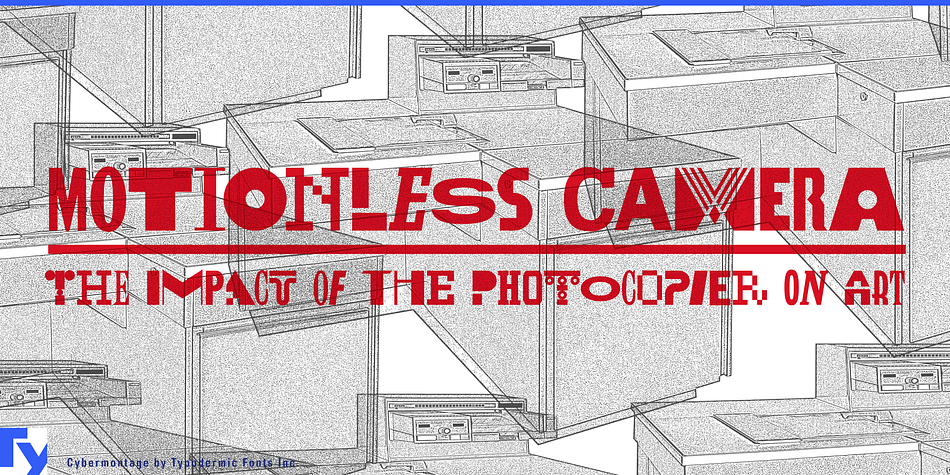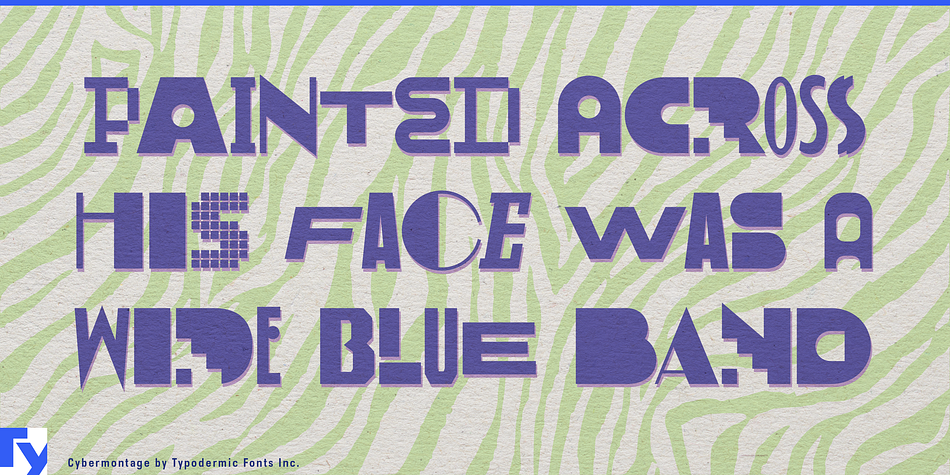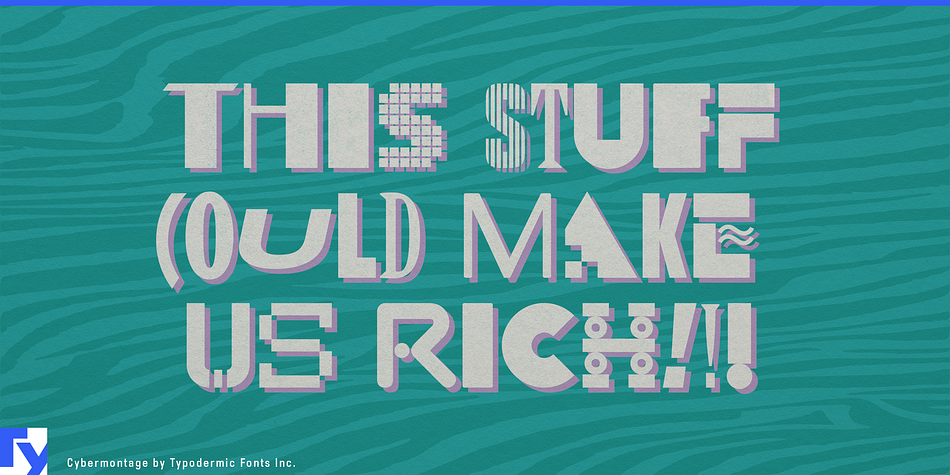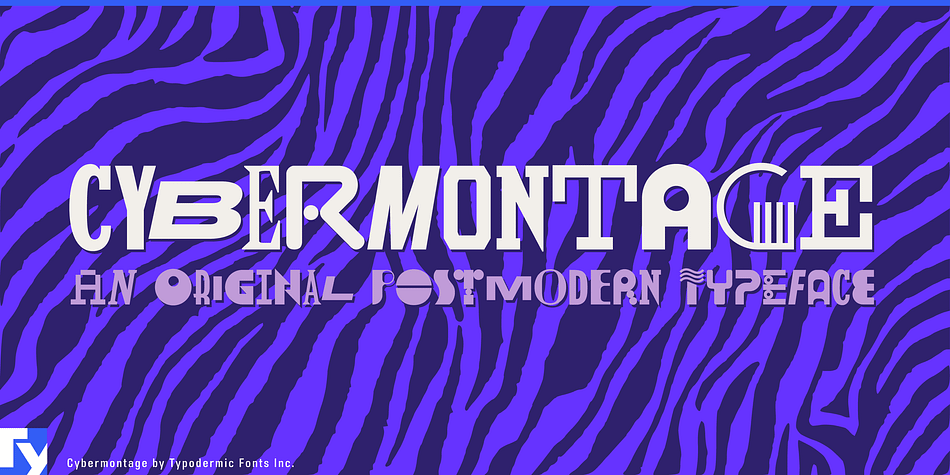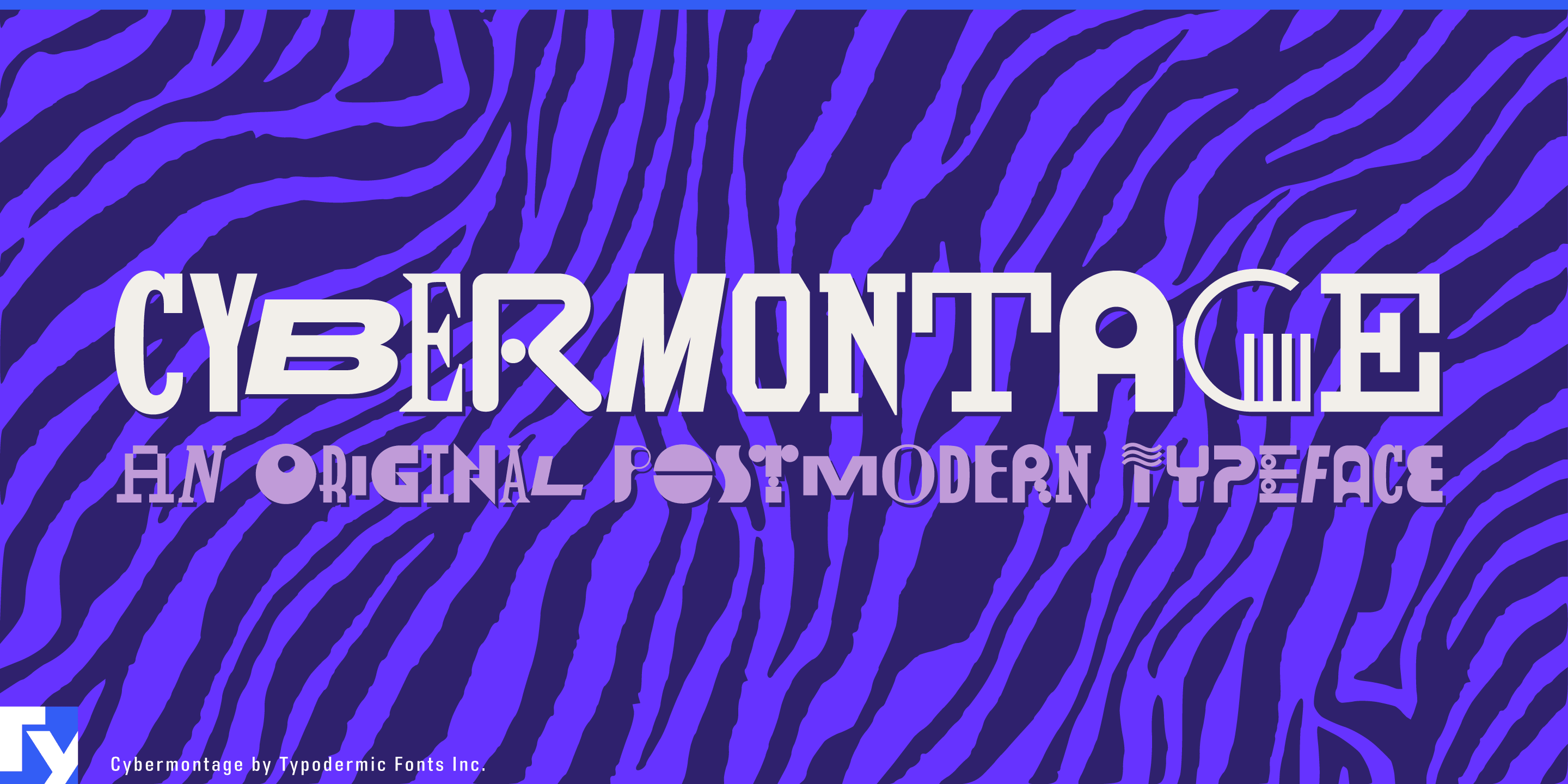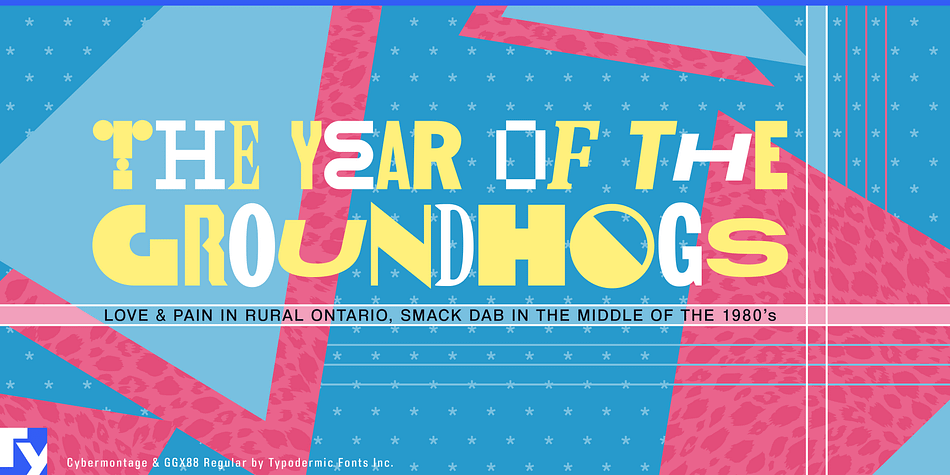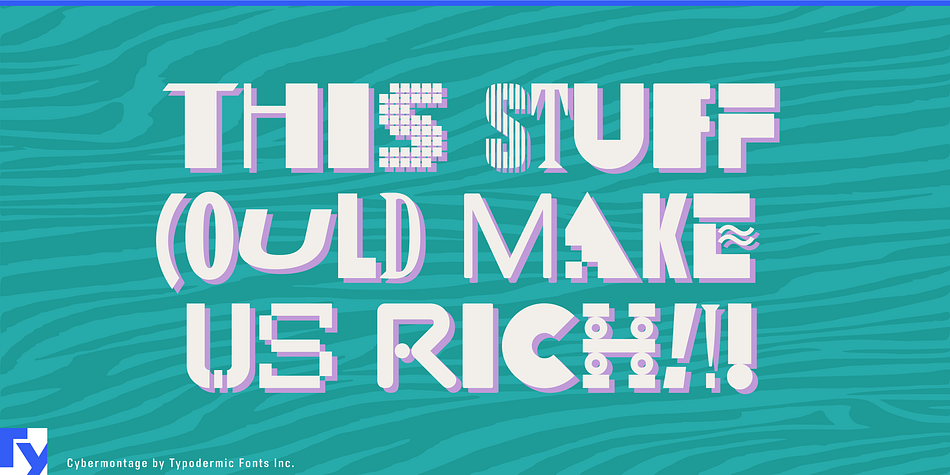
Designed by Ray Larabie, Cybermontage is a novelty font published by Typodermic Fonts Inc.
Cybermontage is a postmodern display typeface reminiscent of a particularly rad 1980’s/1990’s typographic trend. This anything-but-boring design trend employed campy colors, clean geometric shapes, torn paper edges, faux finishes and kitschy patterns. A common tactic was to scramble glyphs from various typefaces, especially art deco, nineteenth-century grotesques, old metal headliners and minimalist geometric designs.
Cybermontage uses OpenType technology to automatically shuffle several variations to create a pseudorandomized effect. If your application doesn’t support OpenType, you can access all these character variations from the Unicode Private Use Area, also known as PUA encoding.
Although some kerning is included, the character interconnection can get pretty wild; if your application supports optical kerning, you may want to activate it.